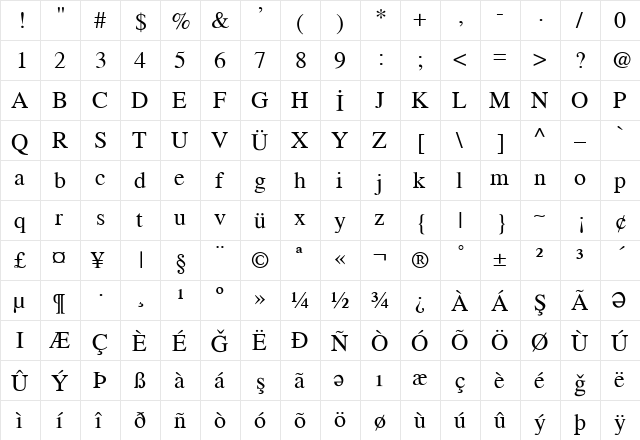
Azari_Kamran.R_Times Regular
Design Context for Azari_Kamran.R_Times Typeface
Azari_Kamran.R_Times takes a measured approach to typography — its balanced proportions and neutral character make it a reliable workhorse for both digital and print work.